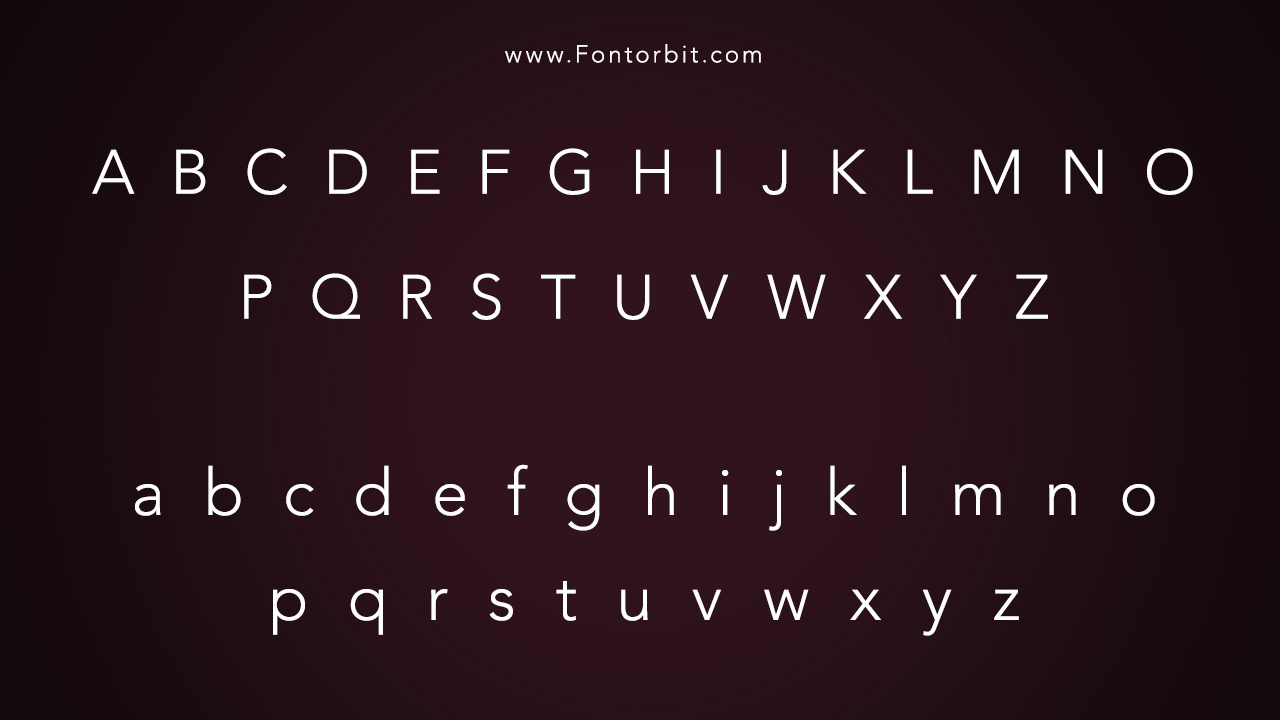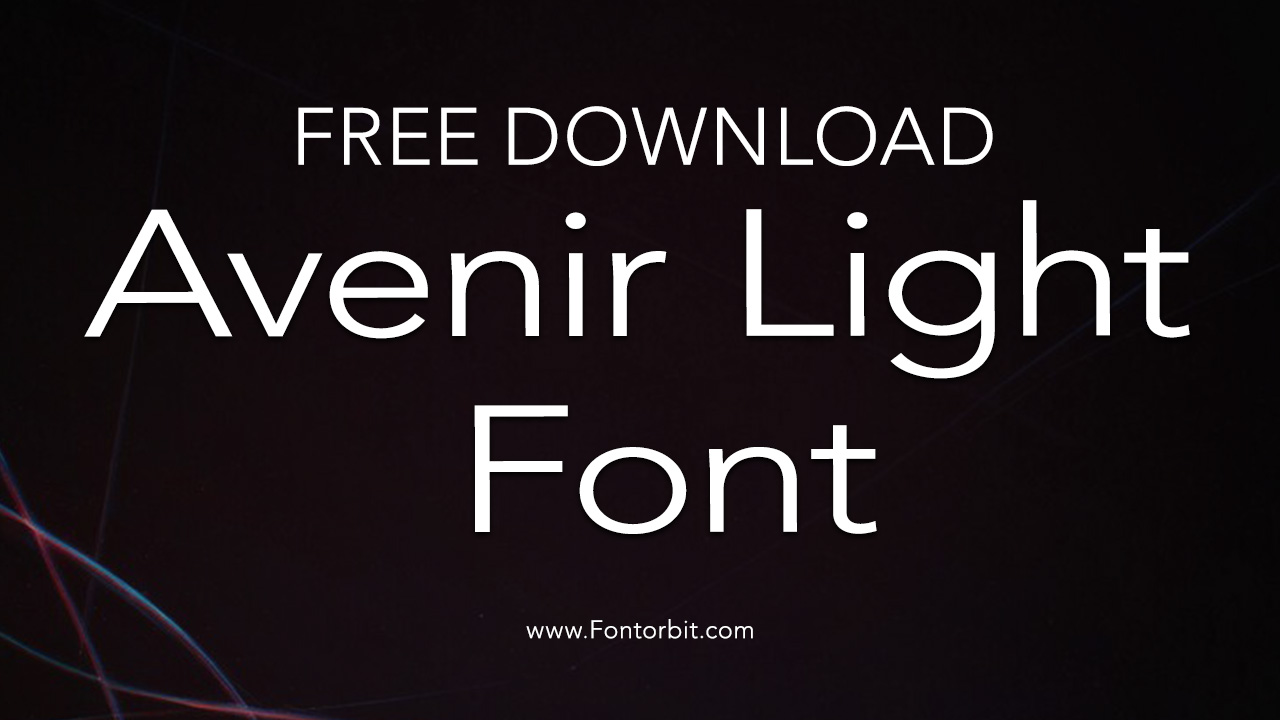
Avenir Light is a sophisticated typeface that blends modern and classic design elements. Created by the renowned designer Adrian Frutiger and released by Linotype in 1988, this elegant font is part of the Avenir family, known for its clean lines and versatility.
Avenir Light Family Includes
The Avenir Light family is celebrated for its streamlined aesthetics. It encompasses a range of styles that cater to various design needs, including:
- Avenir 35 Light
- Avenir Pro 35 Light
- Avenir 35 Light Oblique
- Avenir Pro 35 Light Oblique
- Avenir 45 Book
- Avenir Pro 45 Book
- Avenir 45 Book Oblique
- Avenir Pro 45 Book Oblique
- Avenir 55 Roman
- Avenir Pro 55 Roman
- Avenir 55 Oblique
- Avenir Pro 55 Oblique
- Avenir 65 Medium
- Avenir Pro 65 Medium
- Avenir 65 Medium Oblique
- Avenir Pro 65 Medium Oblique
- Avenir 85 Heavy
- Avenir Pro 85 Heavy
- Avenir 85 Heavy Oblique
- Avenir Pro 85 Heavy Oblique
- Avenir 95 Black
- Avenir Pro 95 Black
- Avenir 95 Black Oblique
- Avenir Pro 95 Black Oblique
Notable Uses Of Avenir Light
Avenir Light is commonly used in a variety of design contexts, including:
- Corporate Branding
- Editorial Design
- User Interfaces
Avenir Light is perfect for:
- Headlines and Subheadings
- Body TextWeb Design
Avenir Light remains a beloved typeface for its timeless design and versatility. Whether for print or digital media, it continues to be a valuable asset for designers seeking a blend of sophistication and clarity. Explore similar font options if you’re looking for alternatives that capture the essence of Avenir Light.
2.What Is The Primary Use Of Avenir Light?
It is used in branding, editorial design, and user interfaces.
3.Can Avenir Light Be Used For Web Design?
Yes, it’s ideal for web design due to its clean and readable nature.
4.What Type Of Font Is Avenir Light?
Avenir Light is a sans-serif typeface.
6.What Makes Avenir Light Different From Other Fonts?
Its modern, clean lines and balanced proportions make it unique.